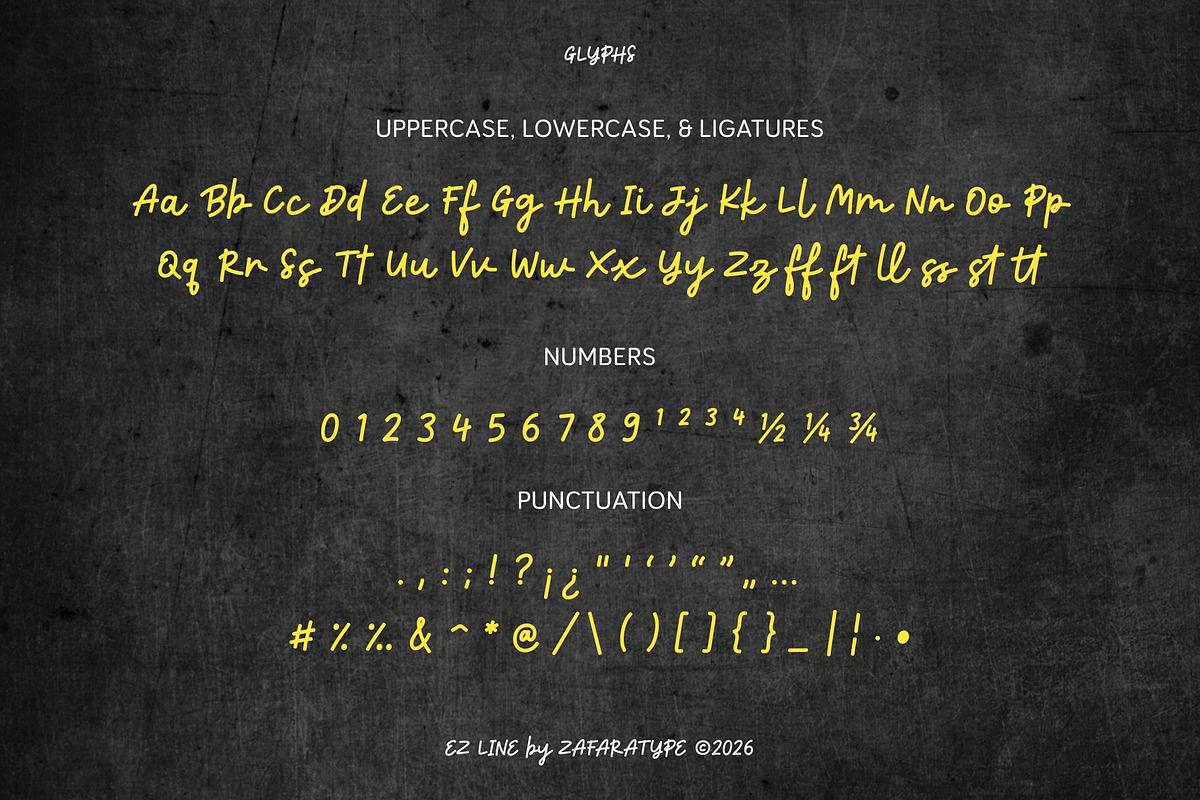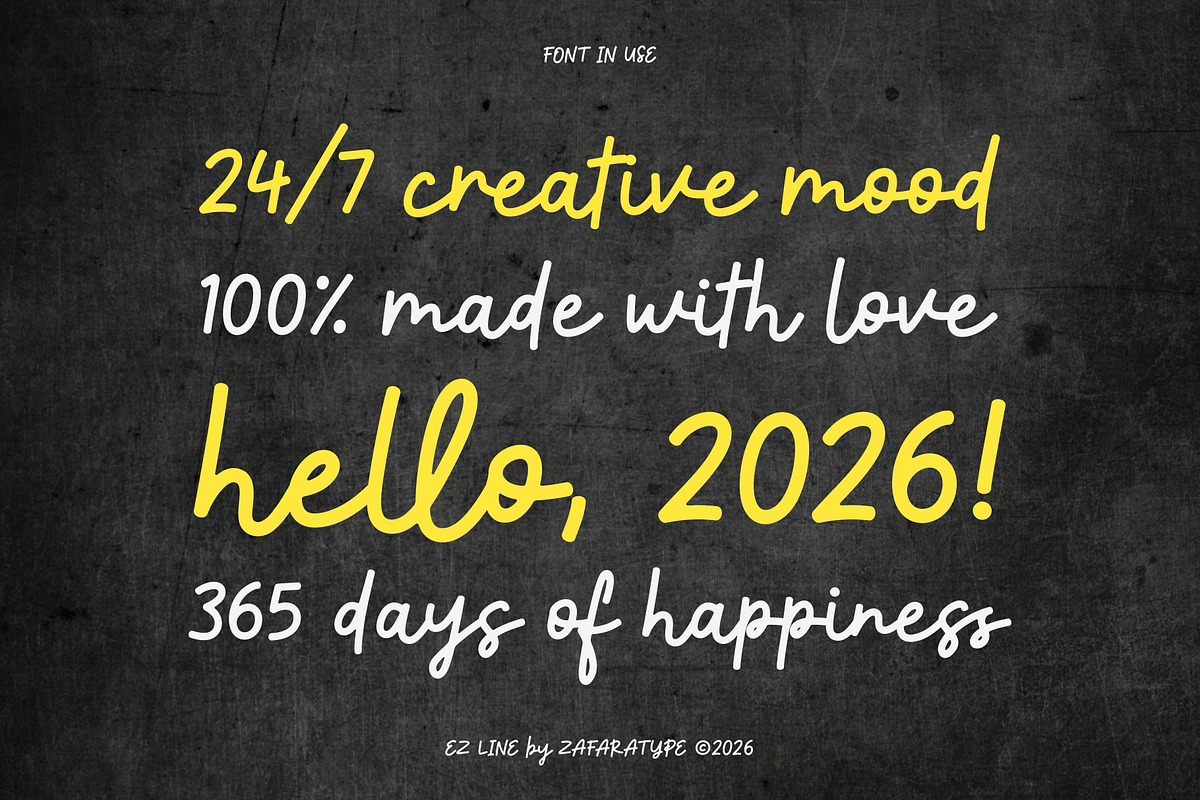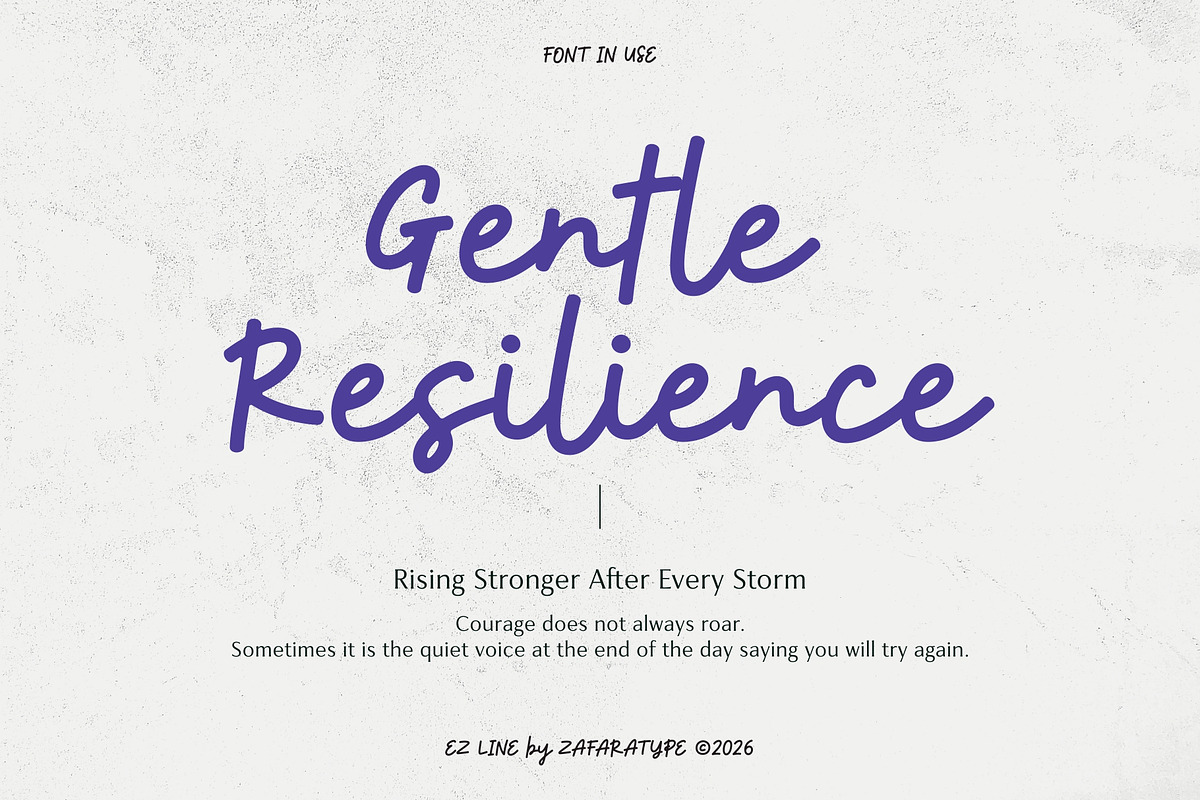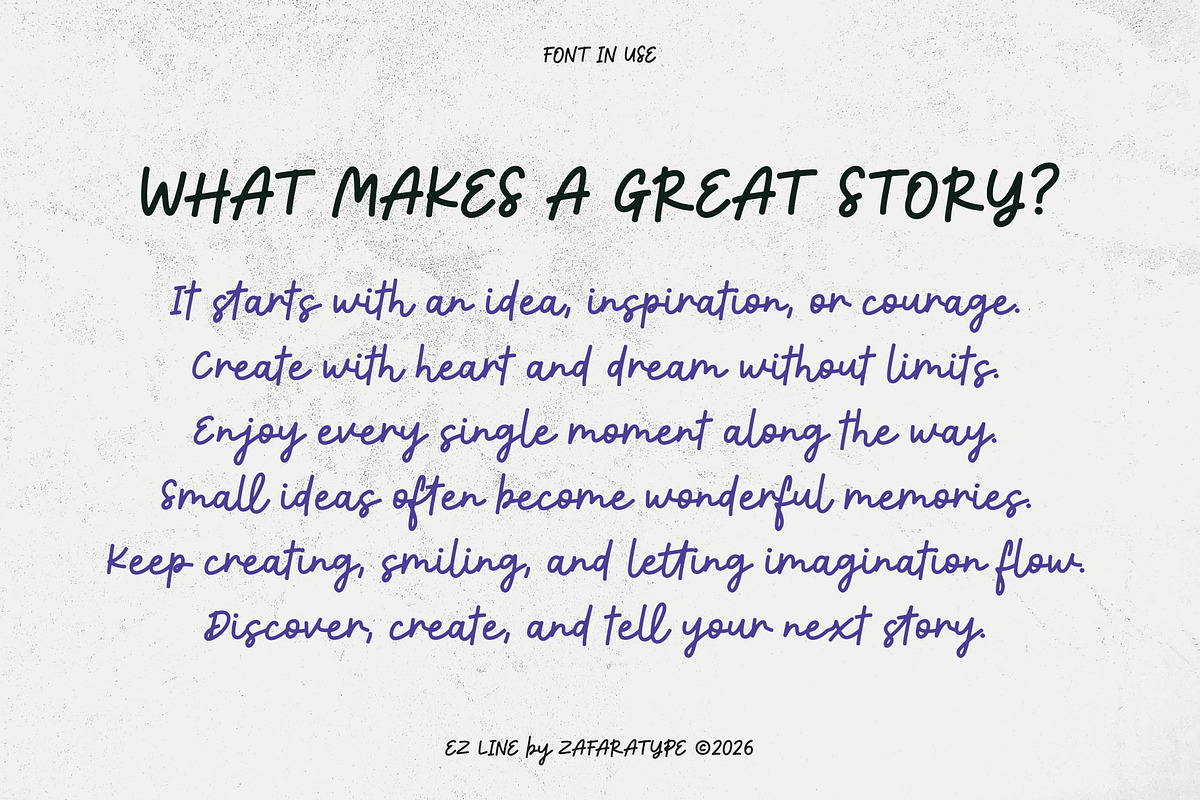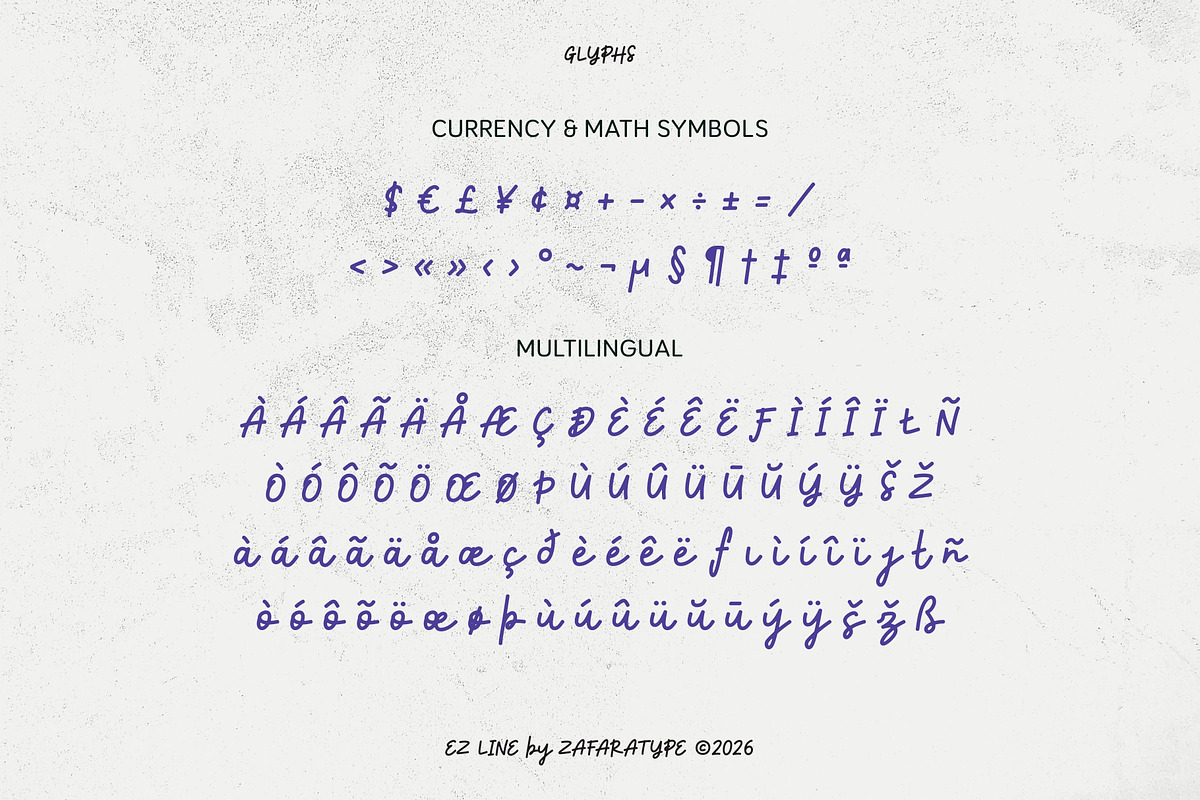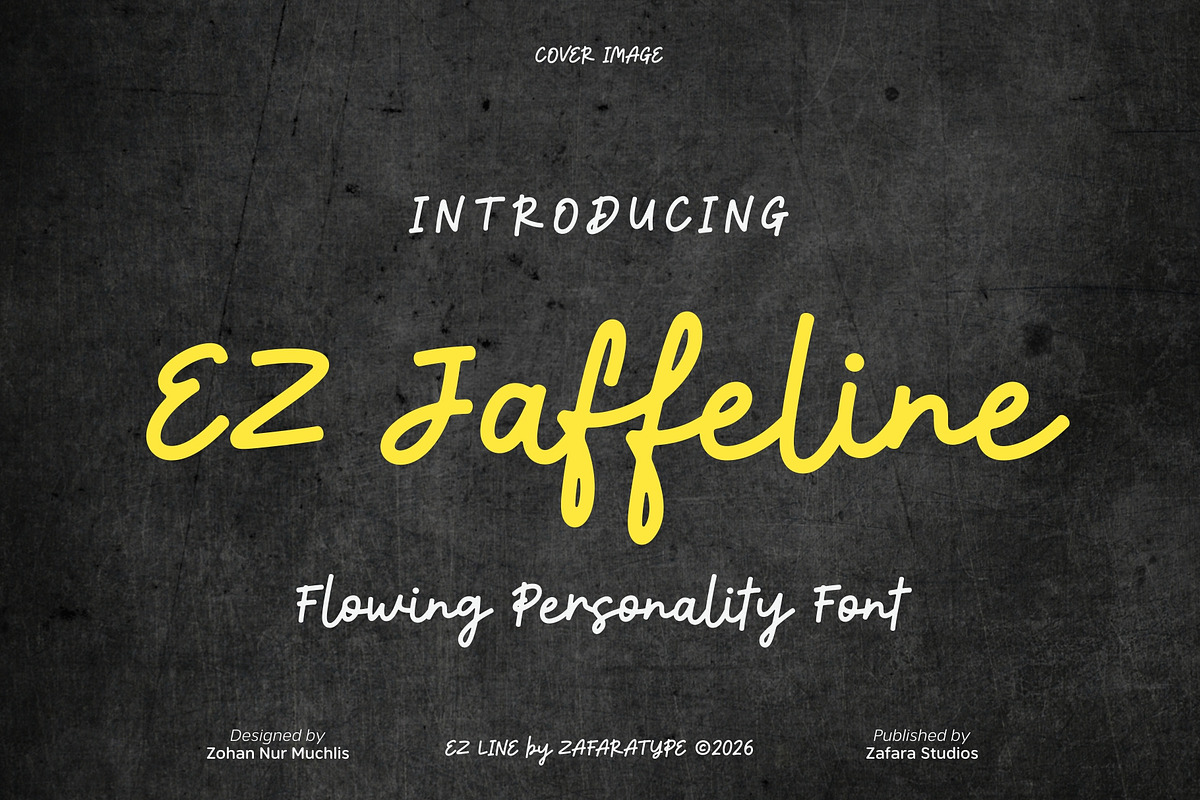
EZ Jaffeline
EZ Jaffeline is a playful and cheerful handwritten font that blends smooth, flowing strokes with a warm and expressive personality. Featuring natural letterforms, lively curves, and an effortless handwritten feel, it brings a friendly and personal touch to your designs while keeping every word clear and easy to read.
Designed to capture the charm of casual, expressive handwriting, EZ Jaffeline is perfect for branding, invitations, greeting cards, quotes, social media, packaging, stationery, logos, and other creative projects. Whether you're creating something fun, warm, or heartfelt, it adds a playful handcrafted touch that makes every design feel more personal and memorable.
249 glyphs: Uppercase, lowercase, ligatures, numbers & punctuation, symbols & accents, multilingual support